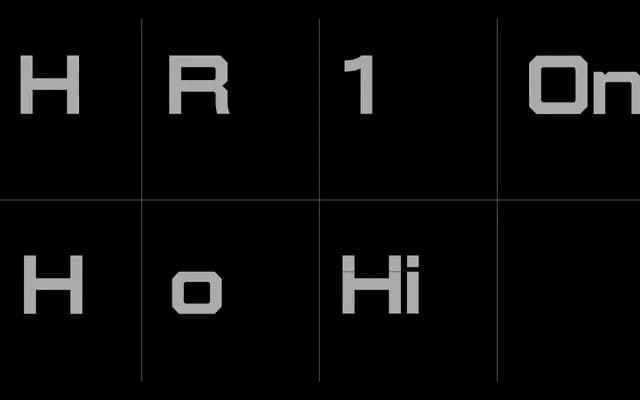
AAA Expanded
A wide, expanded display typeface from Playtype, built for headline and large-scale typographic work.
AAA Expanded sits in the display category, with letterforms stretched horizontally to create a commanding presence at larger sizes. The page offers little technical detail about weights or language support, suggesting a focused, single-style release intended for editorial or branding contexts. Its expanded proportions make it suited to posters, covers and identity work where width and presence are required.
The name 'Expanded' signals a wide, stretched letterform, and the display-focused presentation suggests it is intended for headline and large-scale use rather than text settings.